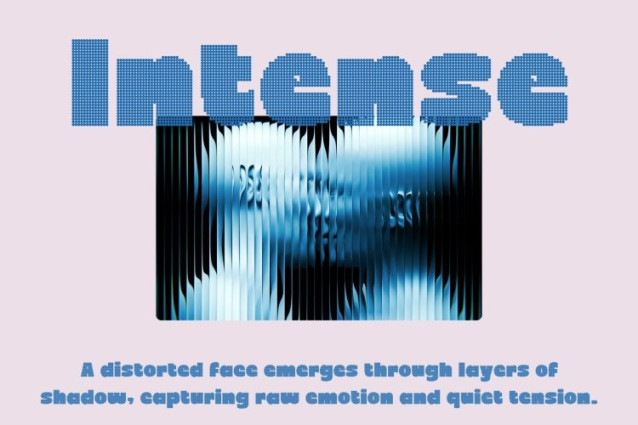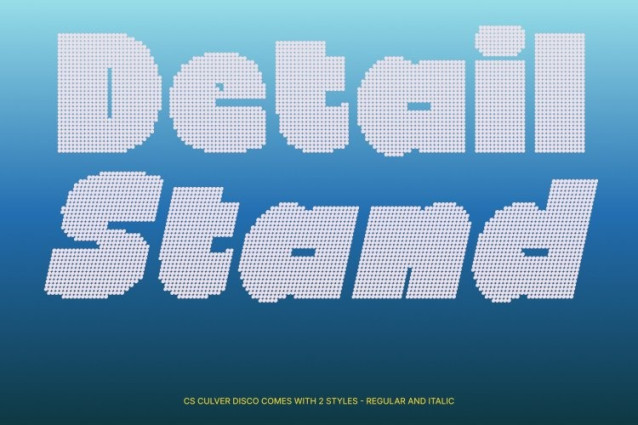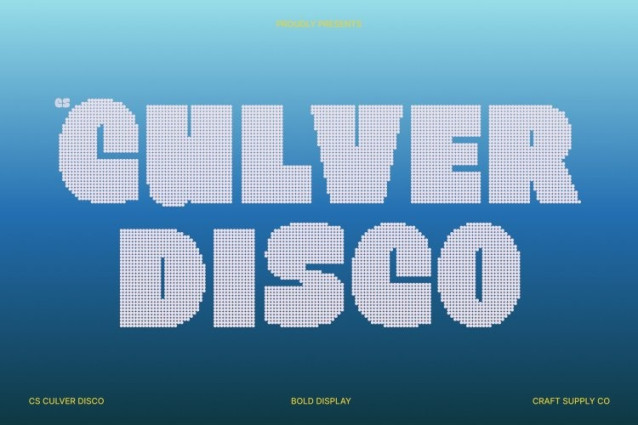
CS Culver Disco Font
CS Culver Disco Font – This transforms the bold retro-funky personality of into a dazzling dotted display inspired by classic disco lights. Its strong sans serif forms remain confident and playful, now illuminated with vibrant dot textures that evoke the sparkle of a lively dance floor. The result is a font that feels energetic, nostalgic, and full of visual excitement.
Retro Funk Meets Luminous Rhythm
The chunky, expressive letterforms retain their 70s-inspired funky charm, while the disco-style dotted construction introduces movement and glow. Each character feels animated and rhythmic, as if lit by flashing party lights, enhancing the font’s playful and nostalgic atmosphere.
Bold, Playful, and Eye-Catching
This font balances retro warmth with festive brilliance. The bold weight ensures strong visibility and impact, while the sparkling dots add charm and celebration. This combination makes the typeface both stylish and approachable perfect for designs that want to radiate fun and personality.
Perfect for Music, Events, and Vibrant Branding
Ideal for music posters, event promotions, product packaging, party graphics, and expressive branding, this font shines in bold headlines and statement typography. Its retro-funky spirit paired with disco sparkle creates a memorable visual presence.